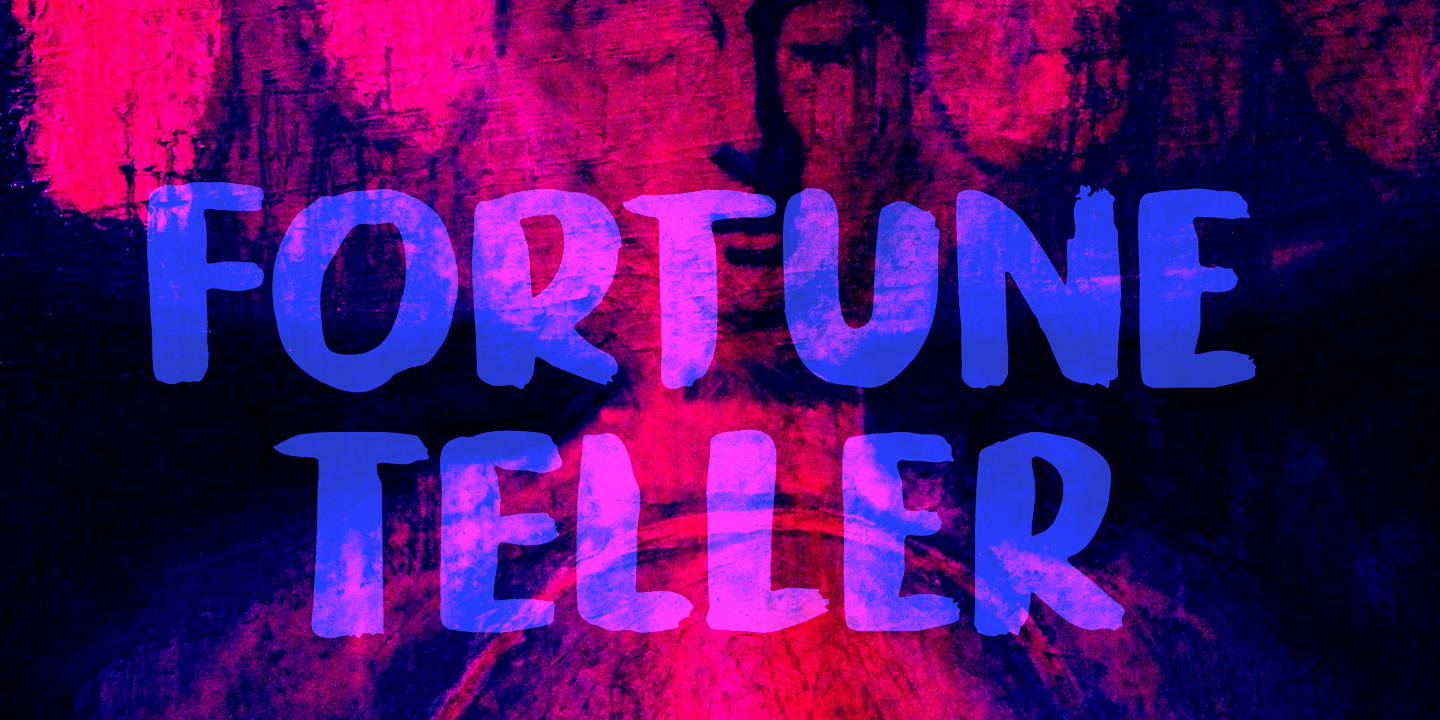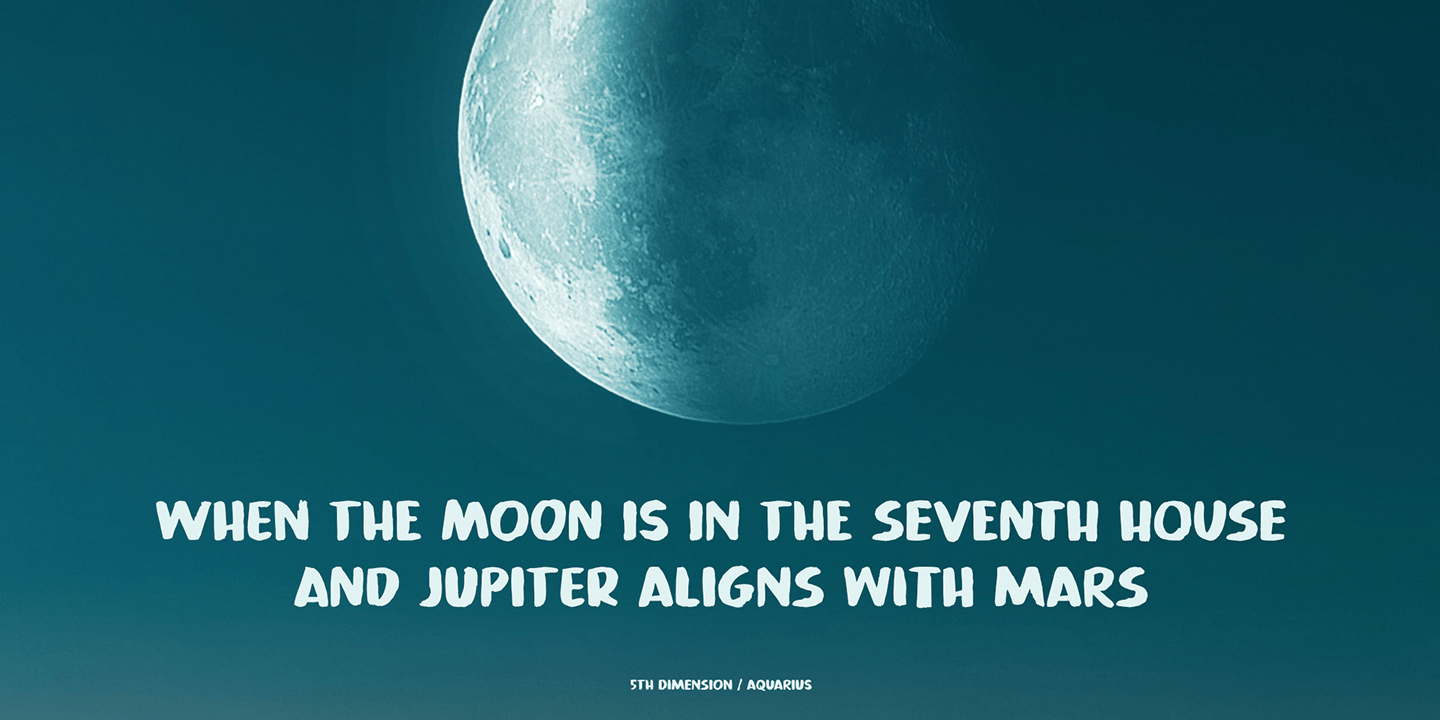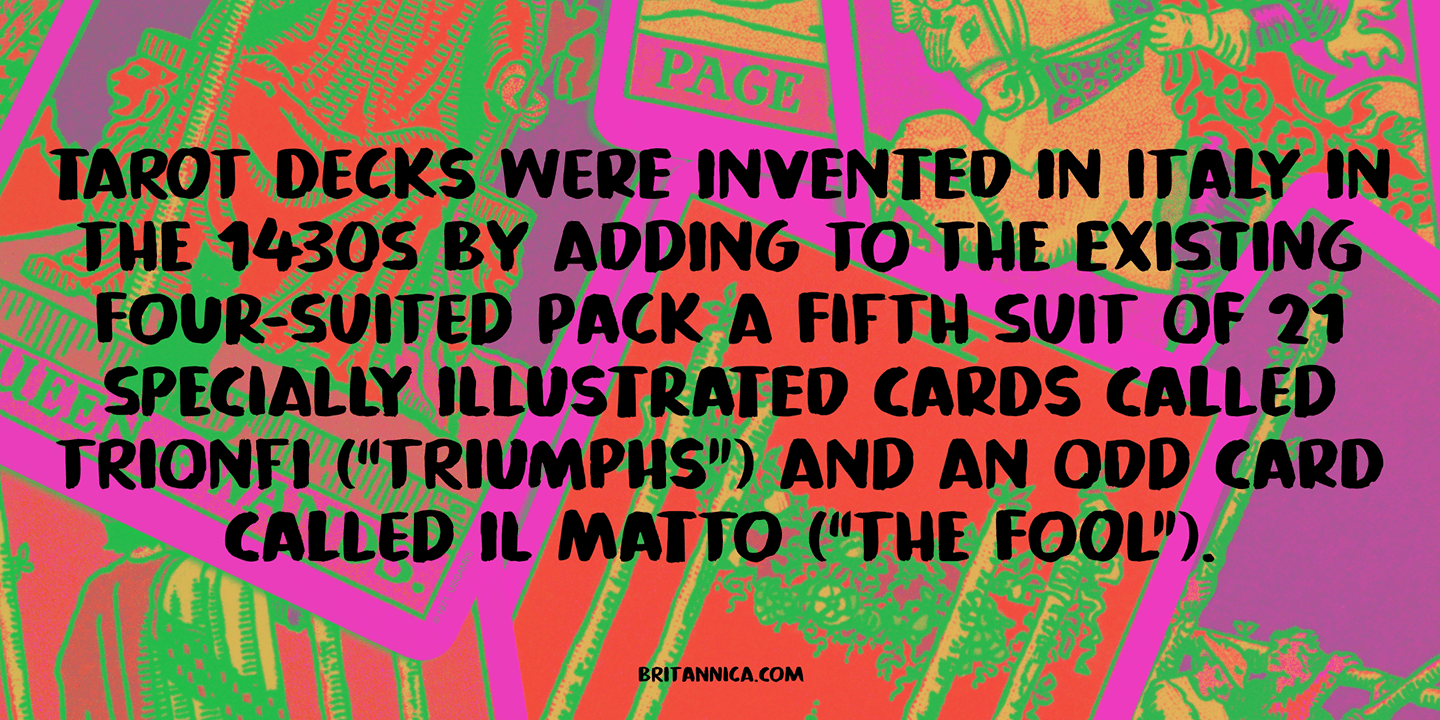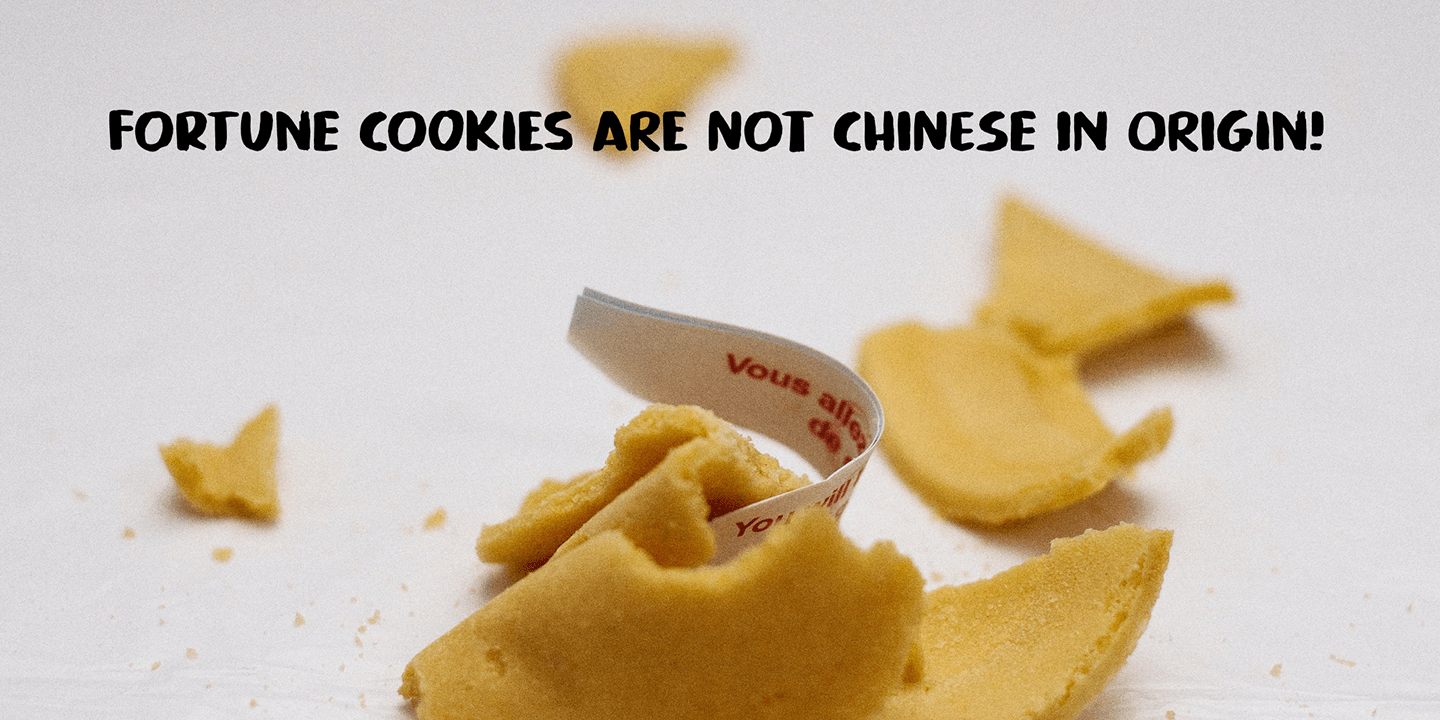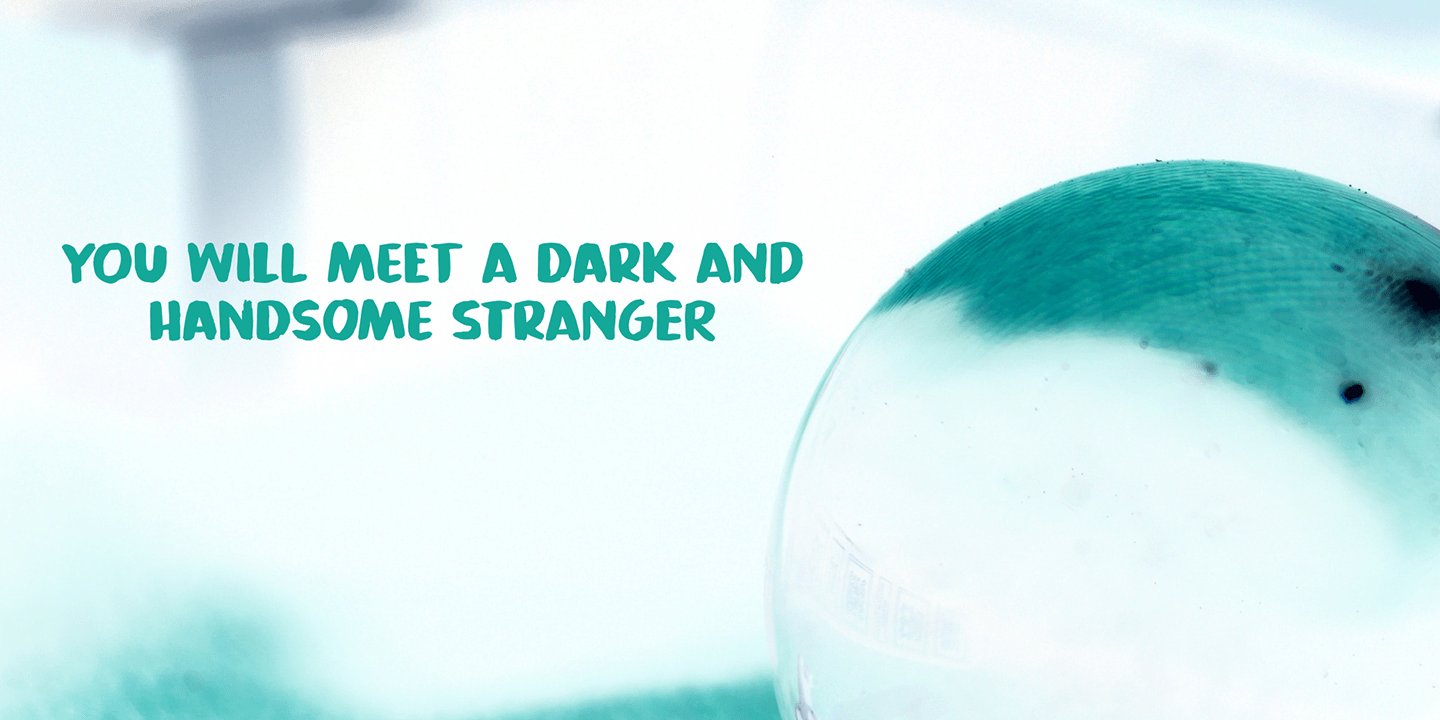
Fortune Teller
Back in the nineties I had a deck of Tarot cards. It was part interest and part curiosity, but I also liked the look of them. My readings were just for fun; I thought it was all a joke, but when people started to return for more readings (because what I had predicted actually happened), I quit. That was way out of my comfort zone!
Fortune Teller is a nice brush font. I made it with one of my late father in law's Chinese brushes and ink.
It comes with all diacritics and a set of alternate glyphs. If you buy this font, you will meet with a tall and handsome stranger and you will win the lottery. Guaranteed! Haha!